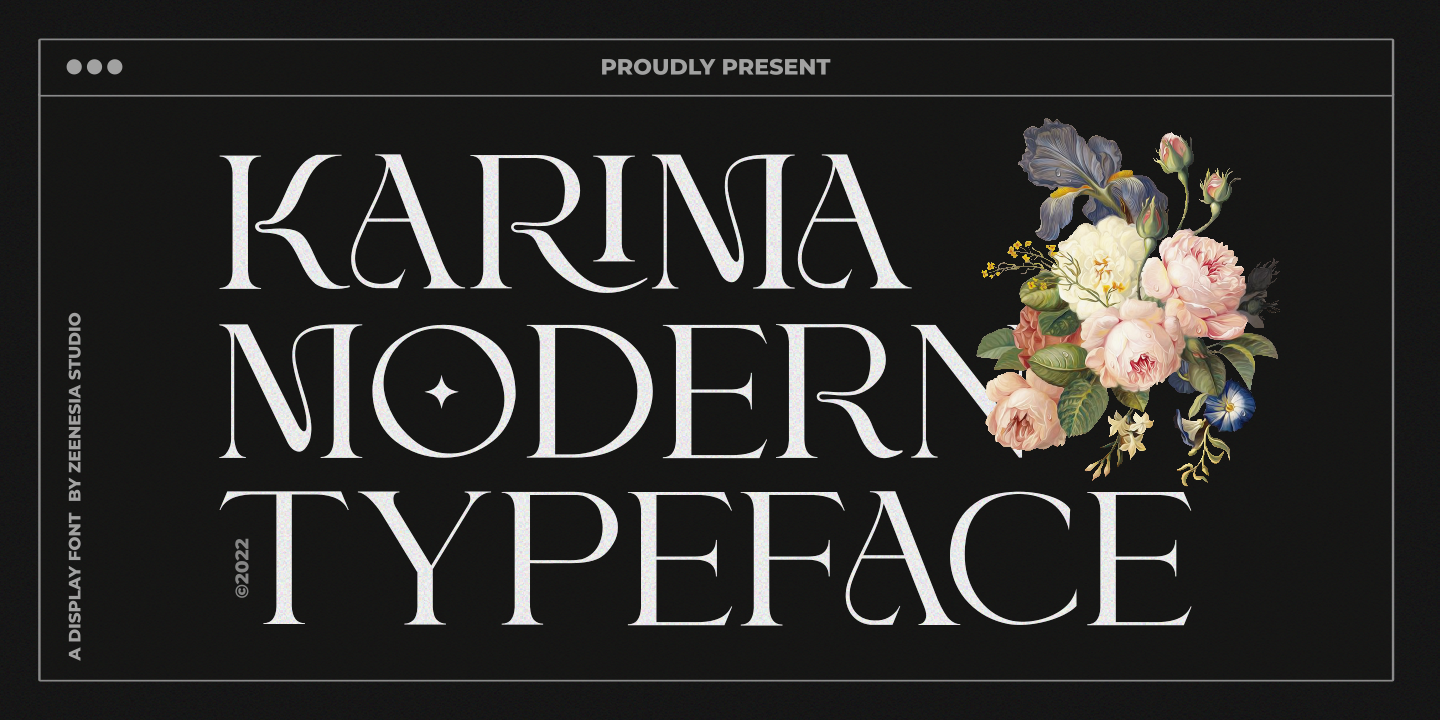
Karima Font is perfect for Middle Eastern cultural centers, elegant Arabic restaurant branding, Islamic art exhibitions, luxury heritage hotels, traditional craft boutiques, cultural festival materials, spiritual wellness centers, sophisticated jewelry packaging, and graceful social media content. This distinguished typeface brings Middle Eastern elegance and cultural sophistication to both digital and print design applications.
Karima Font is exciting because it embodies the noble generosity and graceful hospitality of Middle Eastern culture, making it an exceptional choice for designers who want to convey cultural richness with authentic heritage appeal. Its flowing letterforms and noble character provide the perfect combination of cultural elegance and contemporary functionality, ensuring your projects communicate dignity, generosity, and cultural excellence that resonates with audiences seeking genuine cultural experiences and heritage authenticity.
The Karima Font family includes noble weight variations and cultural elements, featuring light, regular, and bold weights with complementary elegant styles, cultural ligatures, and heritage-inspired decorative flourishes. Each style maintains consistent cultural aesthetics while offering flexibility for different heritage applications, allowing designers to create distinguished visual systems that reflect Middle Eastern values and cultural sophistication.
Whether you're designing for cultural brands, heritage businesses, or traditional organizations, Karima Font Free Download delivers authentic cultural appeal and noble sophistication that connects with audiences seeking genuine heritage experiences and cultural appreciation. This premium typeface offers designers the cultural elegance and noble charm needed to create designs that communicate heritage values, cultural dignity, and traditional excellence effectively. The font's graceful character makes it perfect for cultural branding, heritage campaigns, and traditional applications where authentic cultural credibility is essential. Download Karima Font today and honor your creative projects with genuine cultural sophistication and noble typography excellence that defines heritage design standards.